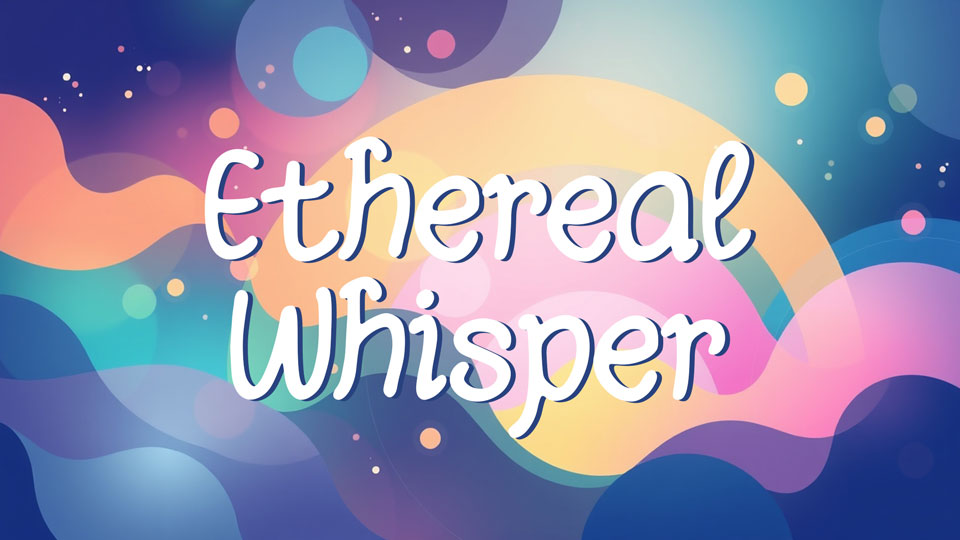
Ethereal Whisper Font › Fontesk
Download Ethereal Whisper font, a delicate, flowing script with wispy strokes, resembling ink swirling in water, evoking a dreamy, otherworldly feel.
Designer: Web Designer